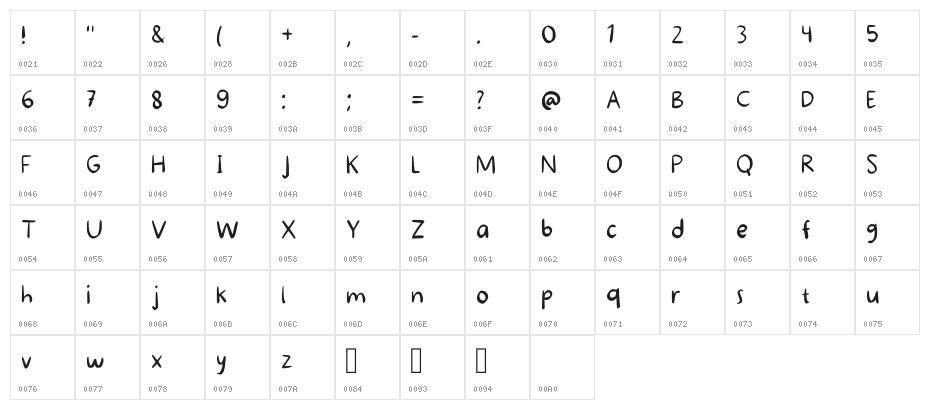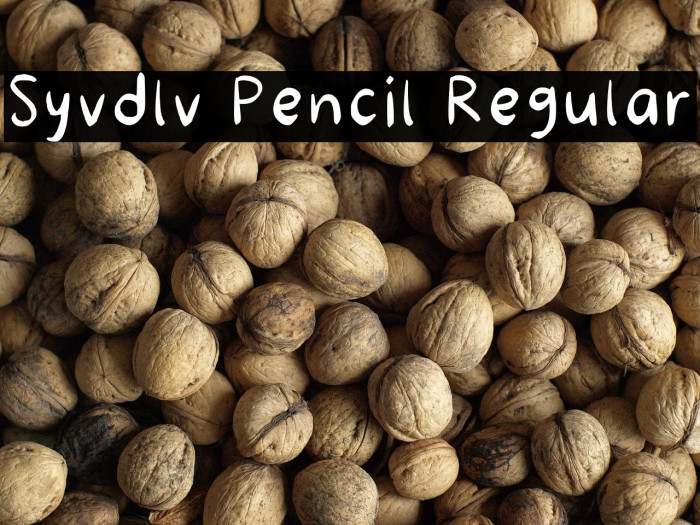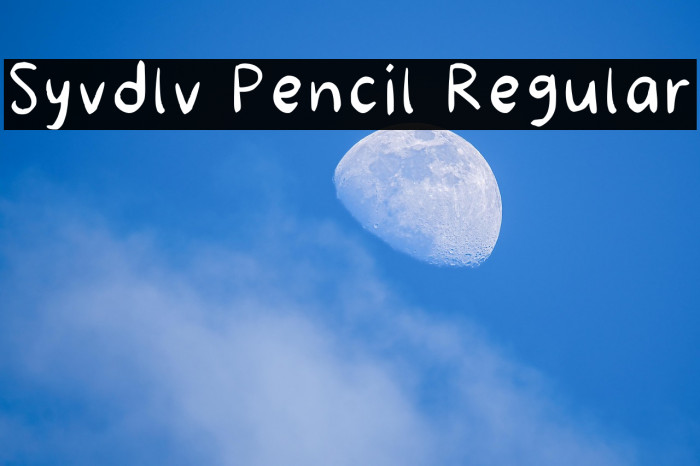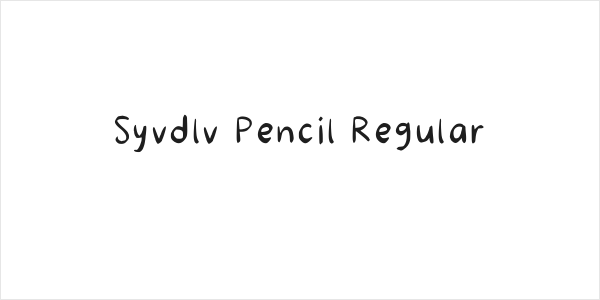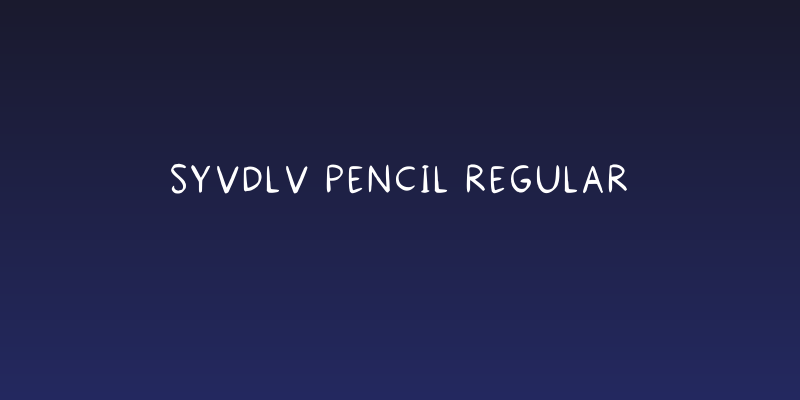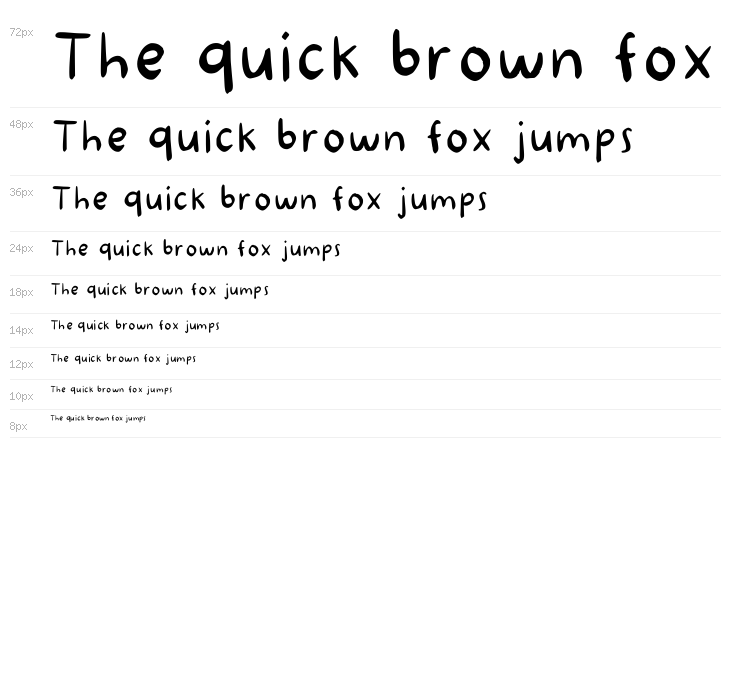
Syvdlv Pencil Regular Font
This font exudes a playful and casual handwritten style, reminiscent of pencil sketches. The characters are slightly irregular, adding a personal and informal touch. The strokes are smooth and rounded, giving a friendly and approachable feel. The uppercase and lowercase letters maintain a consistent style, with a slight tilt that enhances the handwritten effect. The numbers and special characters are crafted with the same attention to detail, ensuring uniformity across the font. This font is perfect for projects that require a personal, human touch, such as greeting cards, invitations, or educational materials.
| Use Case | Headlines, Informal text, Personal projects |
| Proposed Projects | Ideal for greeting cards, invitations, educational materials, and personal notes. |